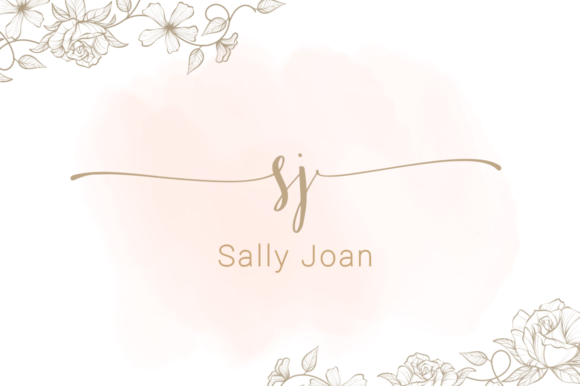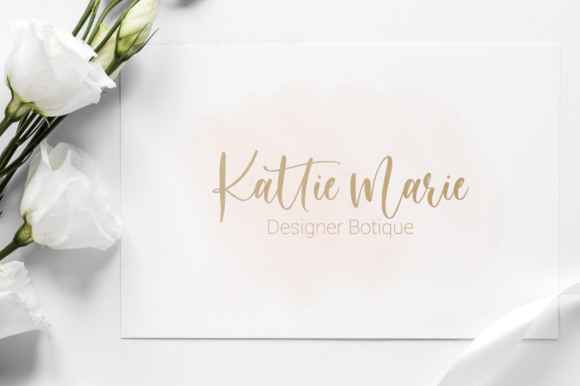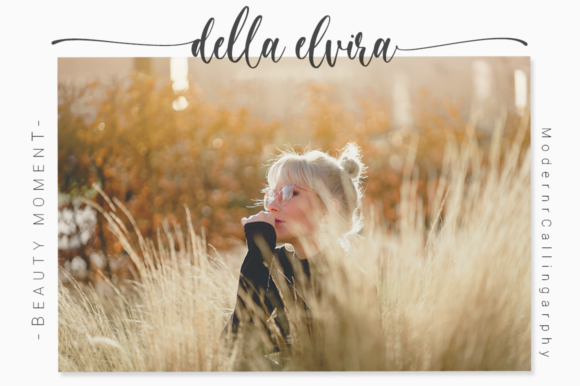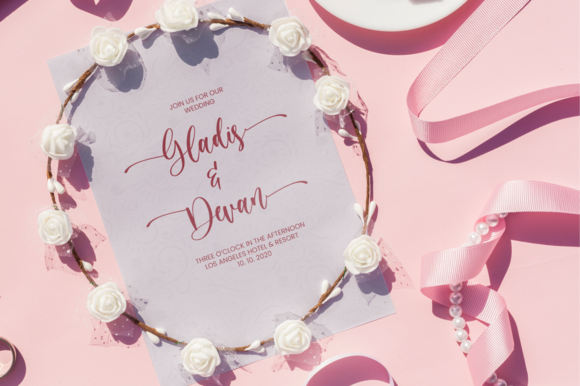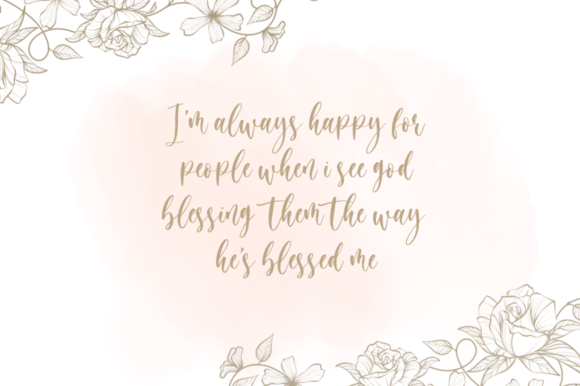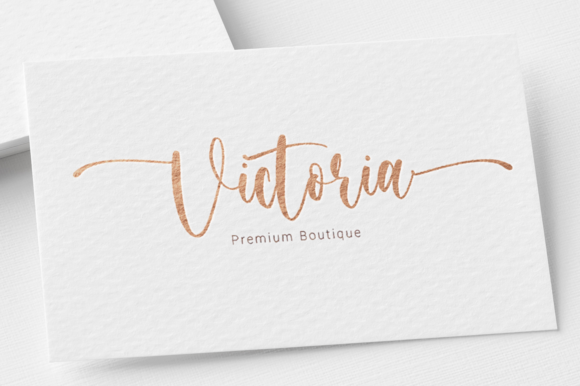
The Blessing Day Font: A Delightful Addition to Your Design Arsenal
I’ll never forget the time I was working on a project for a client’s wedding invitation. I had a clear vision of what I wanted to create, but I just couldn’t find the right font to bring it all together. The client wanted something elegant, yet playful; something that would set the tone for their special day. That’s when I stumbled upon the Blessing Day font, and let me tell you, it was love at first sight! 💕
This distinct and delicate handwritten font has become a staple in my design toolkit, and I’m excited to share its beauty with you. Blessing Day is PUA encoded, which means that you can access all of the glyphs and swashes with ease! It features a varying baseline, smooth lines, gorgeous glyphs, and stunning alternates. In this article, we’ll dive into the world of Blessing Day and explore its features, uses, and alternatives.
• ✨ Delicate and elegant: Blessing Day has a unique, hand-crafted feel that’s perfect for projects that require a touch of sophistication.
• ✅ Easy to use: The PUA encoding makes it simple to access all the glyphs and swashes, even for those who aren’t font experts.
• 💫 Versatile: This font is incredibly versatile and can be used for a wide range of projects, from wedding invitations to branding and packaging.
• 🎨 Customizable: With its various alternates and glyphs, you can experiment with different styles to find the perfect fit for your project.
While Blessing Day is an amazing font, there are a few things to keep in mind: 🤔
• ⚠️ Legibility at small sizes: As with many script fonts, Blessing Day can be a bit tricky to read at very small sizes. Make sure to test it at different sizes to ensure it’s legible for your project.
• ⚠️ Overuse of swashes: While the swashes are gorgeous, it’s easy to get carried away and overuse them. Be mindful of the overall aesthetic you want to achieve and balance the swashes accordingly.
If you love Blessing Day, you might also enjoy these similar fonts:
• Lovely Script: A beautiful, elegant script font with a similar feel to Blessing Day. Use it for wedding invitations, branding, and packaging.
• Pacifico: A modern script font with a relaxed, beachy vibe. Perfect for summer-themed projects or branding.
• Great Vibes: A fun, handwritten font with a similar energetic feel to Blessing Day. Use it for projects that require a playful touch.
• Alex Brush: A elegant, handwritten font with a sophisticated feel. Ideal for projects that require a touch of luxury.
The Story Behind Blessing Day
Blessing Day was designed by a talented font creator who wanted to craft a font that would evoke a sense of joy and celebration. The designer drew inspiration from traditional handwritten scripts and infused them with a modern, playful twist. The result is a font that’s both elegant and approachable.
A: PUA (Private Use Area) encoding is a way of encoding fonts that allows for easy access to glyphs and swashes. This means that you can use the font’s special characters and alternates without having to install additional software or plugins.
Q: Is Blessing Day suitable for body text?
A: While Blessing Day is a beautiful font, it’s best suited for headlines, titles, and short paragraphs. For body text, you may want to choose a font that’s more legible and easier to read.